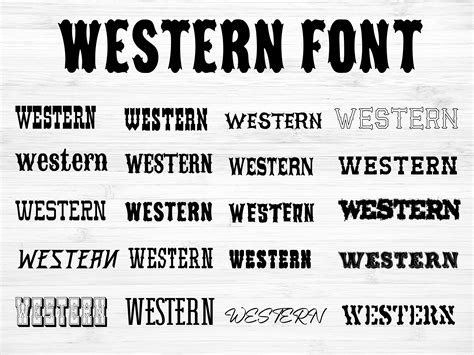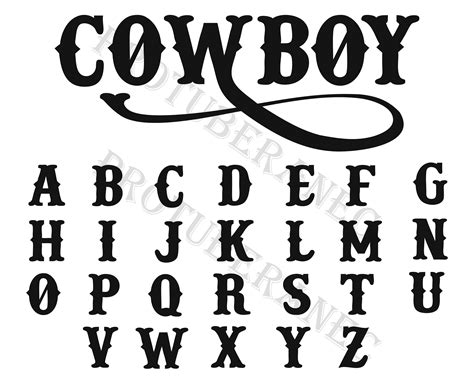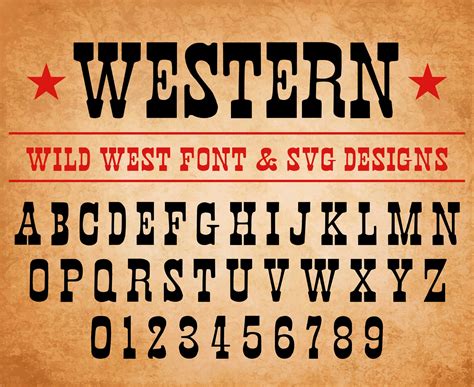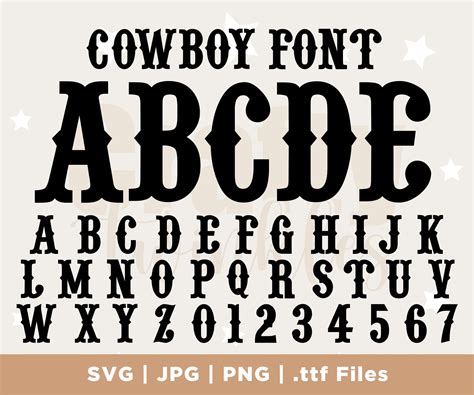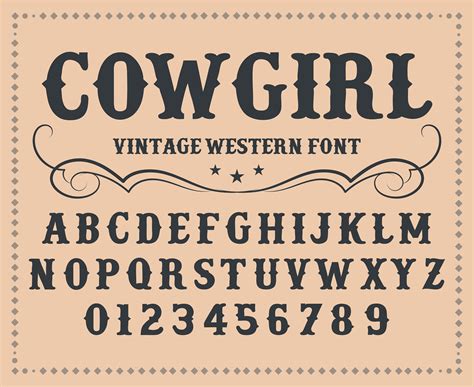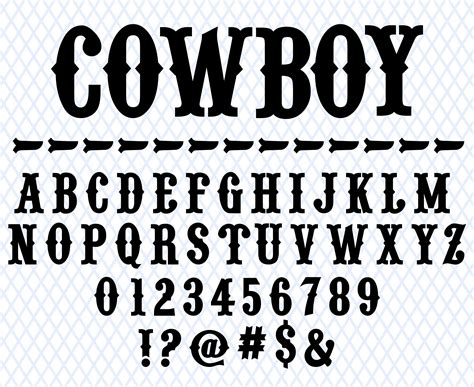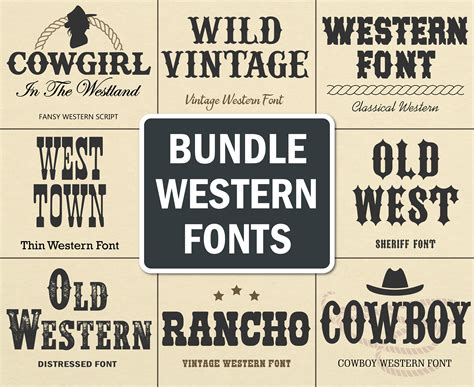
In the digital age, typography plays a crucial role in design, whether it's for web development, graphic design, or print media. One of the most sought-after styles is the Western font, known for its clean lines and readability. Fortunately, there are numerous free Western fonts available that can elevate your projects without breaking the bank. This post will guide you through the world of free Western fonts, helping you understand their importance, where to find them, and how to use them effectively.
Understanding Western Fonts
Western fonts are characterized by their simplicity and elegance, making them versatile for a wide range of applications. These fonts often feature serifs or sans-serif styles, which can significantly impact the overall aesthetic of your design. Serif fonts, with their small decorative strokes at the ends of letters, are often associated with tradition and formality. In contrast, sans-serif fonts, which lack these decorative strokes, are modern and clean, making them ideal for digital media.
Why Use Free Western Fonts?
Using free Western fonts offers several advantages:
- Cost-Effective: Free fonts allow you to experiment with different styles without financial constraints.
- Versatility: Western fonts can be used in various contexts, from formal documents to casual web designs.
- Accessibility: Many free fonts are designed with readability in mind, ensuring your content is accessible to a wide audience.
- Creative Freedom: With a vast array of free options, you can explore different styles and find the perfect fit for your project.
Where to Find Free Western Fonts
There are numerous platforms where you can find high-quality free Western fonts. Some of the most popular include:
How to Choose the Right Free Western Font
Selecting the right font can make or break your design. Here are some tips to help you choose the perfect free Western font:
- Purpose: Consider the purpose of your design. For example, a serif font might be more suitable for a formal report, while a sans-serif font could be better for a modern website.
- Readability: Ensure the font is easy to read, especially if it will be used in small sizes or on digital screens.
- Style: Match the font style to the overall aesthetic of your project. A playful font might work well for a children's book, while a more professional font is better for a business report.
- Compatibility: Check if the font is compatible with the software or platform you are using. Some fonts may not work well with certain applications.
Top Free Western Fonts to Consider
Here are some of the top free Western fonts that you can consider for your next project:
| Font Name | Style | Best For |
| Roboto | Sans-Serif | Web Design, Mobile Apps |
| Merriweather | Serif | Print Media, E-books |
| Lato | Sans-Serif | Web Design, Branding |
| Playfair Display | Serif | Headings, Titles |
| Open Sans | Sans-Serif | Web Design, User Interfaces |